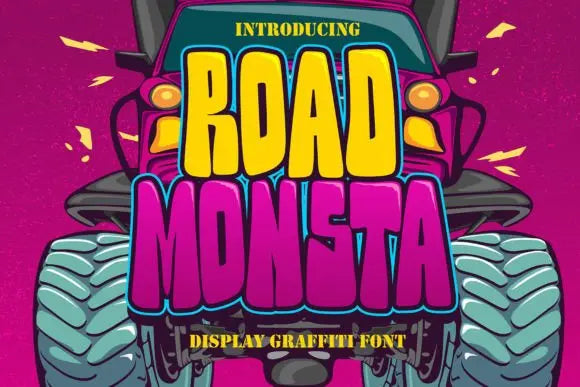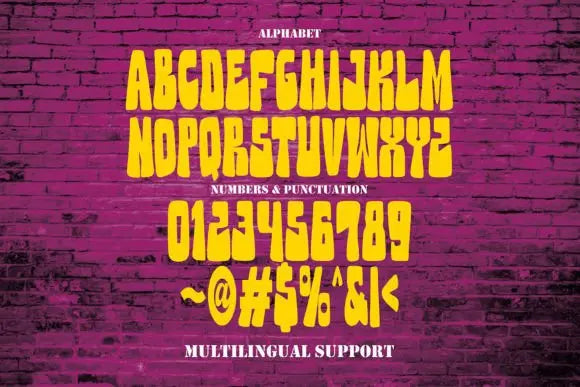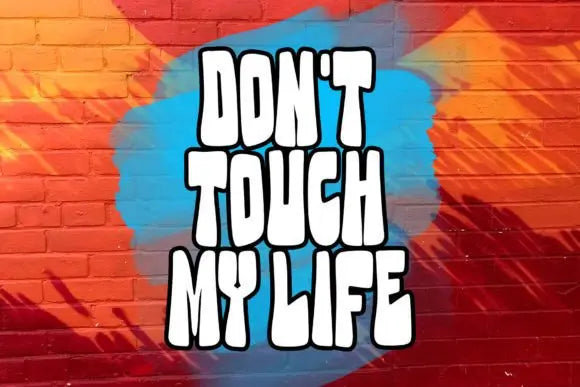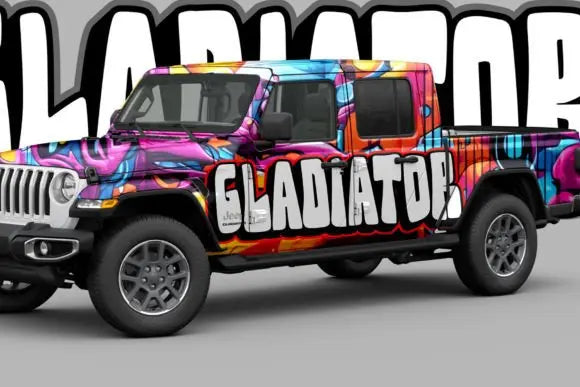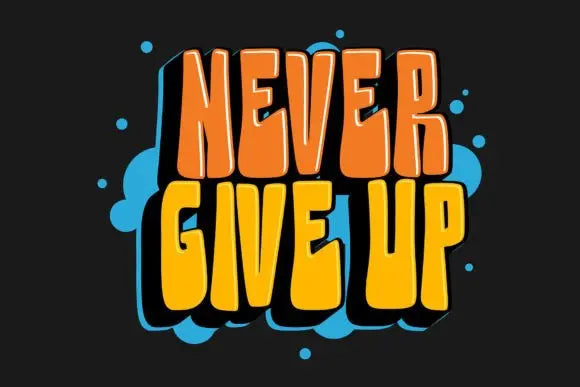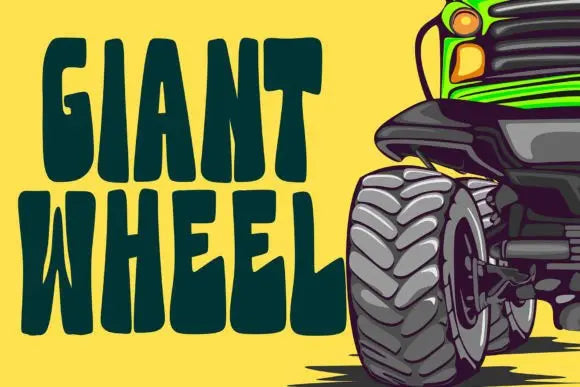
Road Monsta Font
Rule the Roads with Road Monsta Font
Why Road Monsta Font is the Ultimate Urban Typeface?
Need a bold and gritty font? Road Monsta Font is inspired by street culture, rebellious branding, and urban graffiti. Whether you're working on skateboard graphics, underground music branding, or streetwear designs, this font commands attention.
Road Monsta Font – Street, Rebel & Bold
With its rough, hand-drawn aesthetic, Road Monsta Font is great for album covers, posters, and urban advertisements. If your brand embraces raw energy and movement, this font perfectly captures the spirit.
Key Features of Road Monsta Font:
✦ Urban & Gritty Design – Ideal for street culture, music, and graffiti branding.
✦ Bold & Expressive – Creates a strong visual identity.
✦ Versatile Usage – Works for logos, posters, and social media.
Take your urban designs to the next level with Road Monsta Font – bold, raw, and full of attitude!